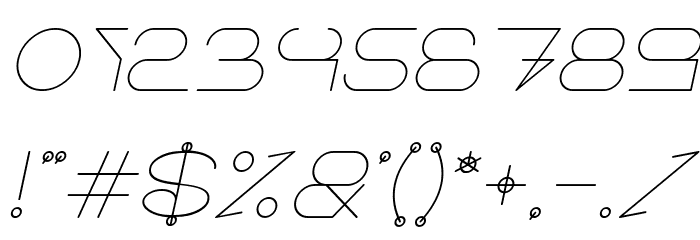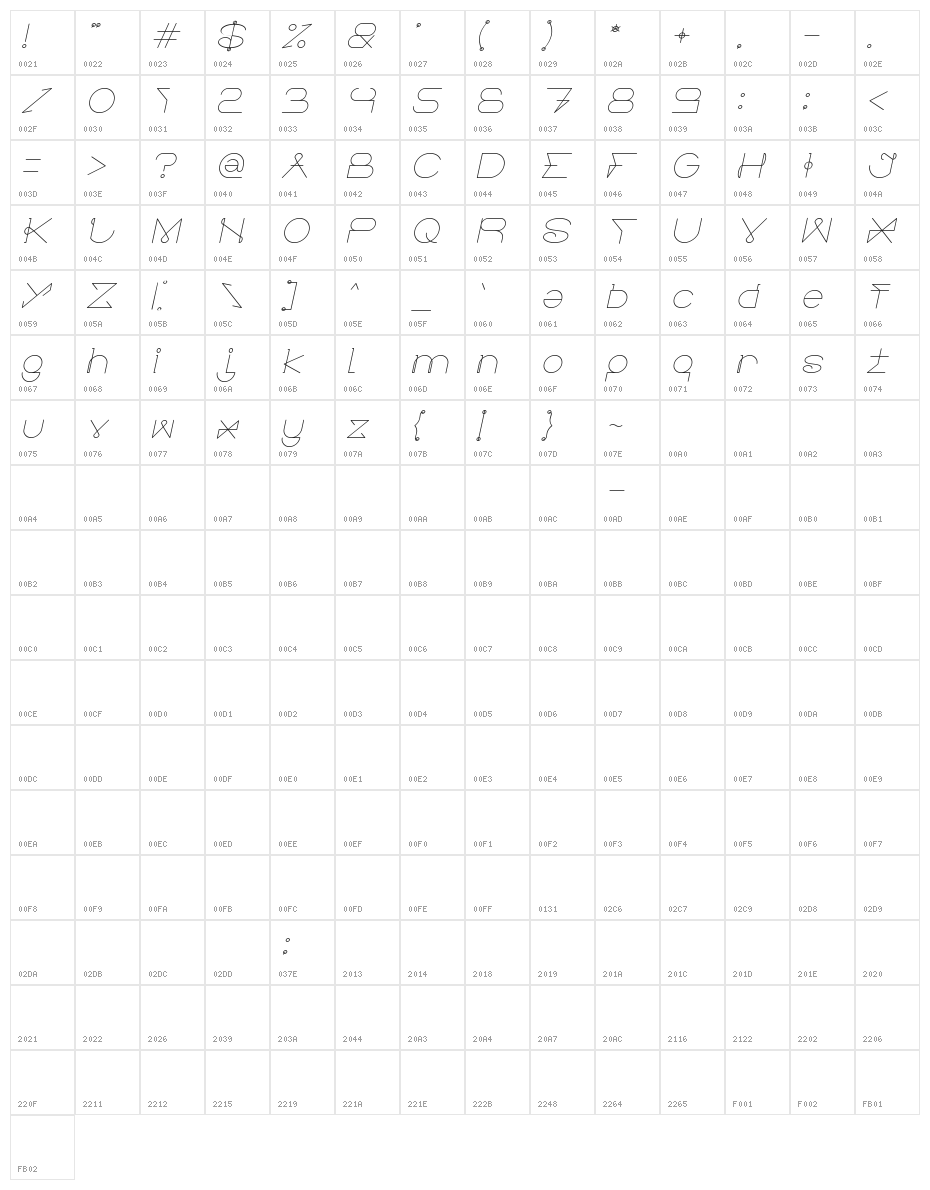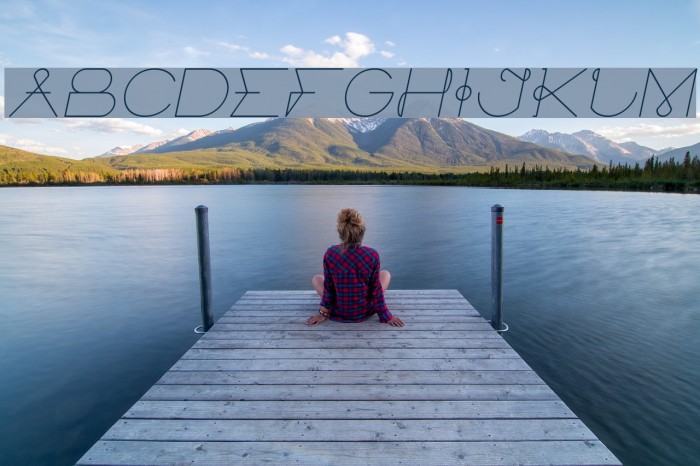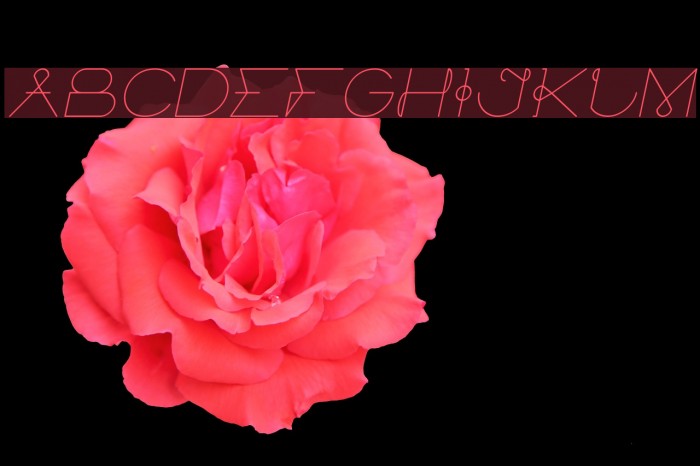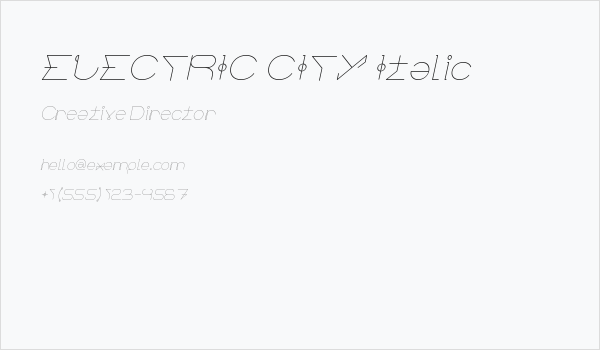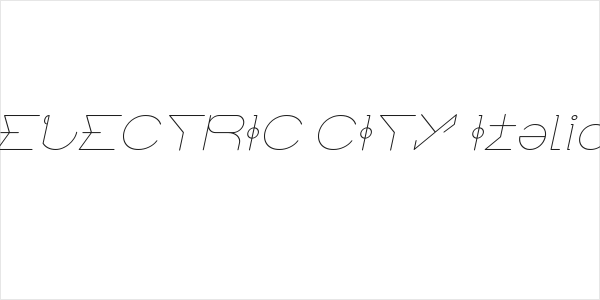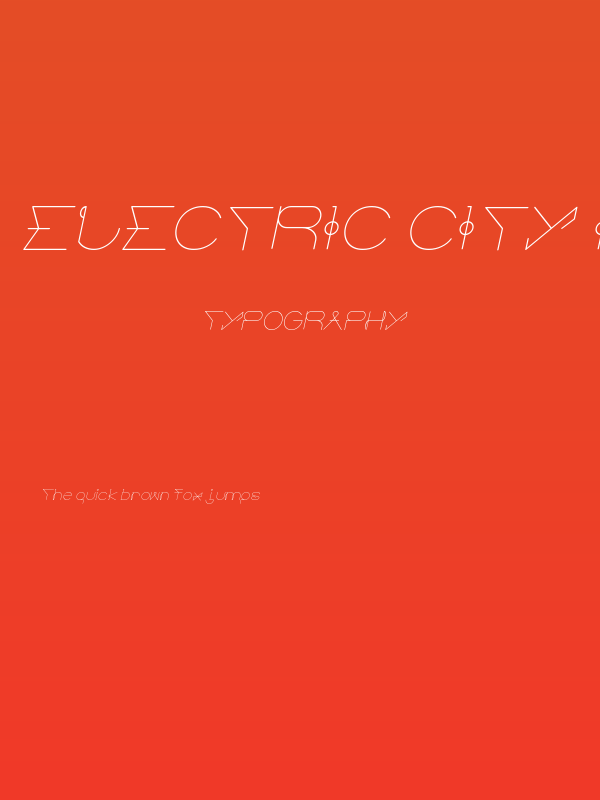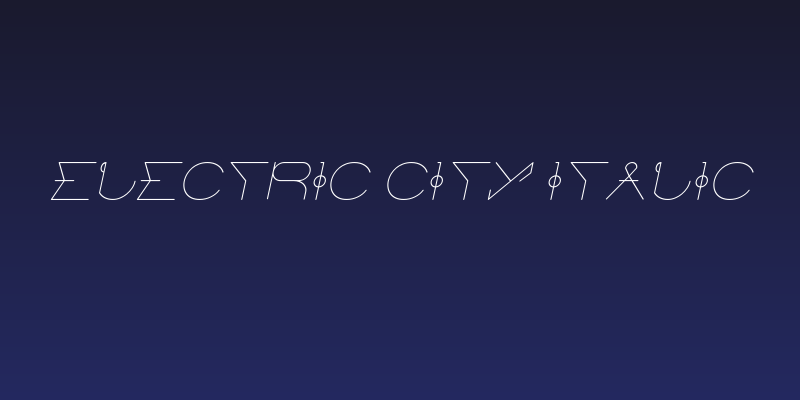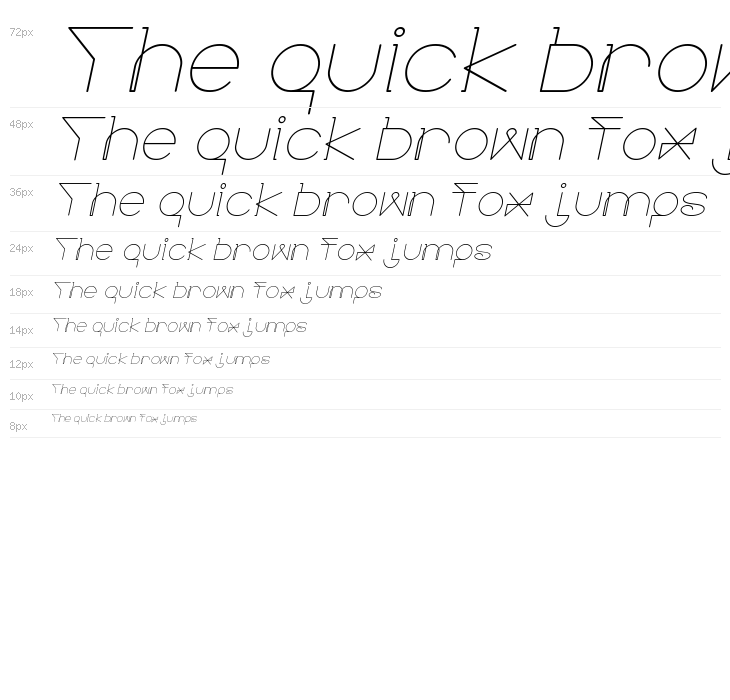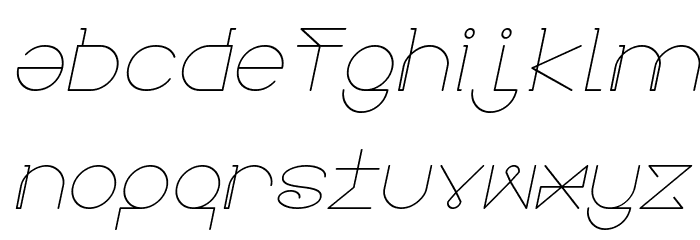
ELECTRIC CITY Italic Font
ELECTRIC CITY Italic Description
This font features a futuristic and geometric design, characterized by its unique and angular letterforms. The characters are constructed with a combination of straight lines and curves, creating a dynamic and electric feel. The uppercase and lowercase letters maintain a consistent style, with some letters incorporating distinctive elements such as slashes and loops. The numerals follow the same design principles, ensuring uniformity across all characters. Special characters are creatively designed, adding to the font's overall aesthetic. This font's modern and edgy appearance makes it suitable for projects that require a bold and innovative look.
| Use Case | Logos, Headlines |
| Proposed Projects | Ideal for tech-related branding, sci-fi movie posters, and innovative product packaging. |